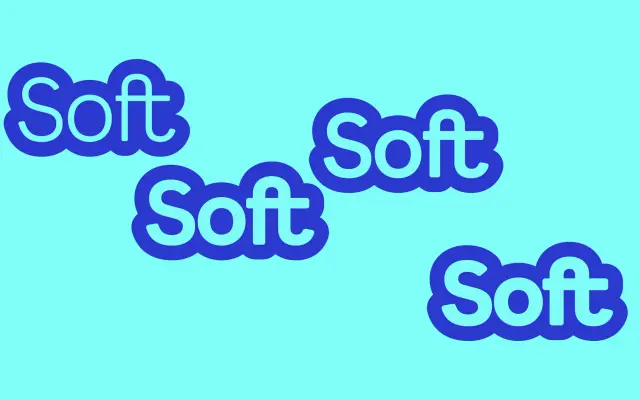
F37 Gruffy Soft
F37 Gruffy Soft specimen from F37 Foundry
A softened cut of F37 Gruffy that sits between the sharp original and the fully rounded version, keeping a friendly mood without going fully bubbly.
A softened humanist sans by Rick Banks that sits as the middle width between F37 Gruffy and F37 Gruffy Round. Six weights from Light to Black with matching italics retain the family's curly tails and over-exaggerated curves, with the terminals lightly cushioned rather than fully circular. Useful for branding, packaging and editorial systems that want a friendlier face than the standard Gruffy but more structure than the Round.
F37 position Gruffy Soft between the standard Gruffy and the fully rounded Gruffy Round. Terminals are softened rather than fully rounded, keeping more of the parent's angled cuts while removing the sharpest corners.